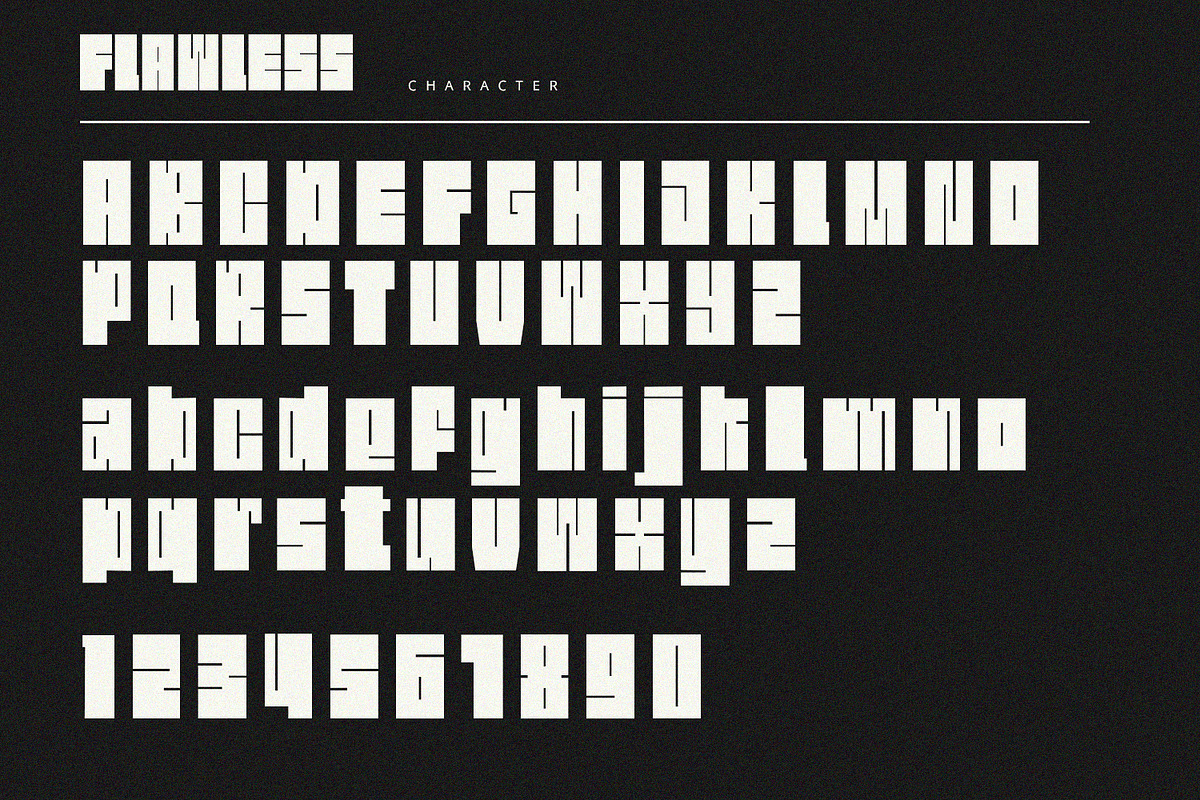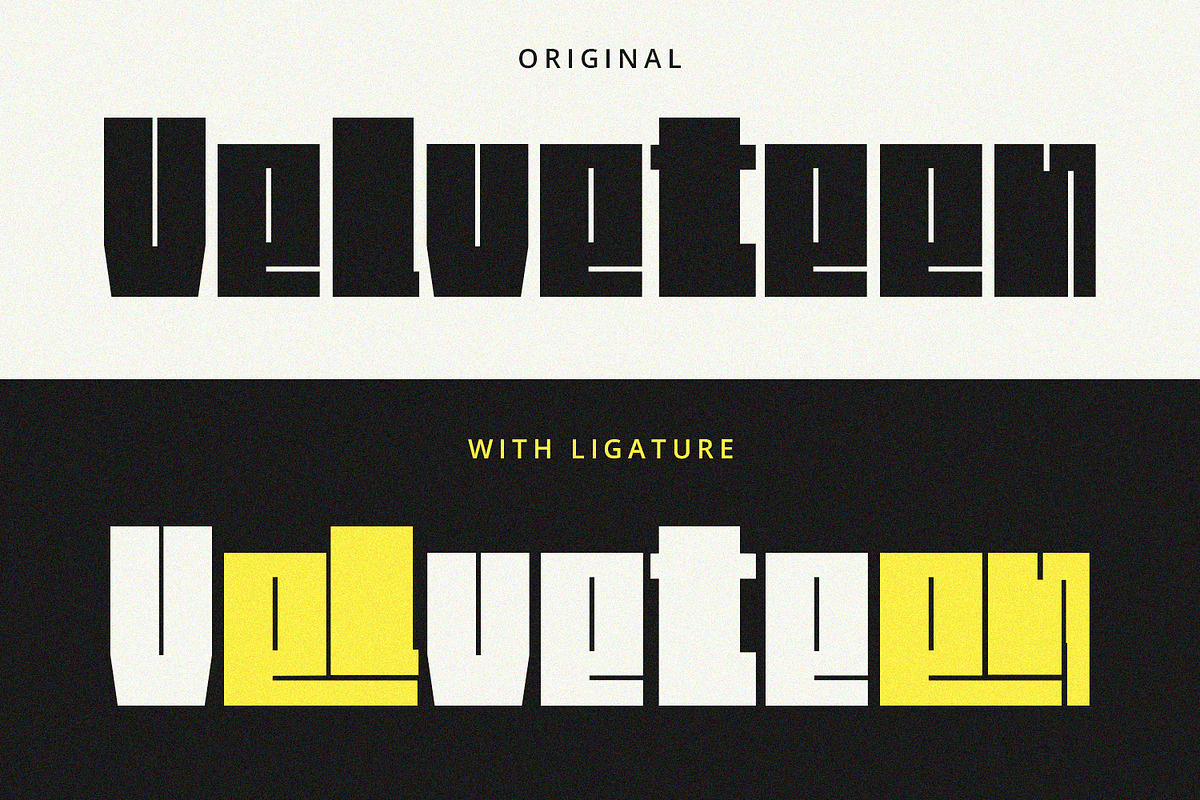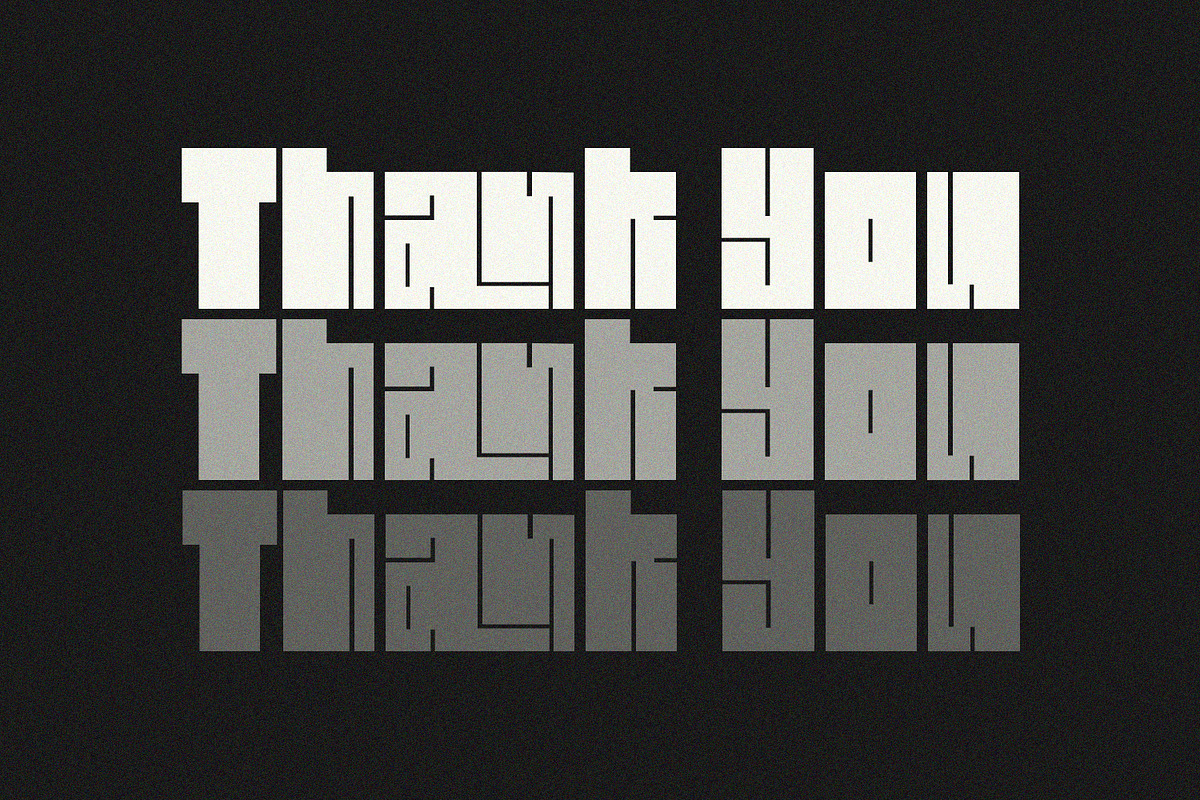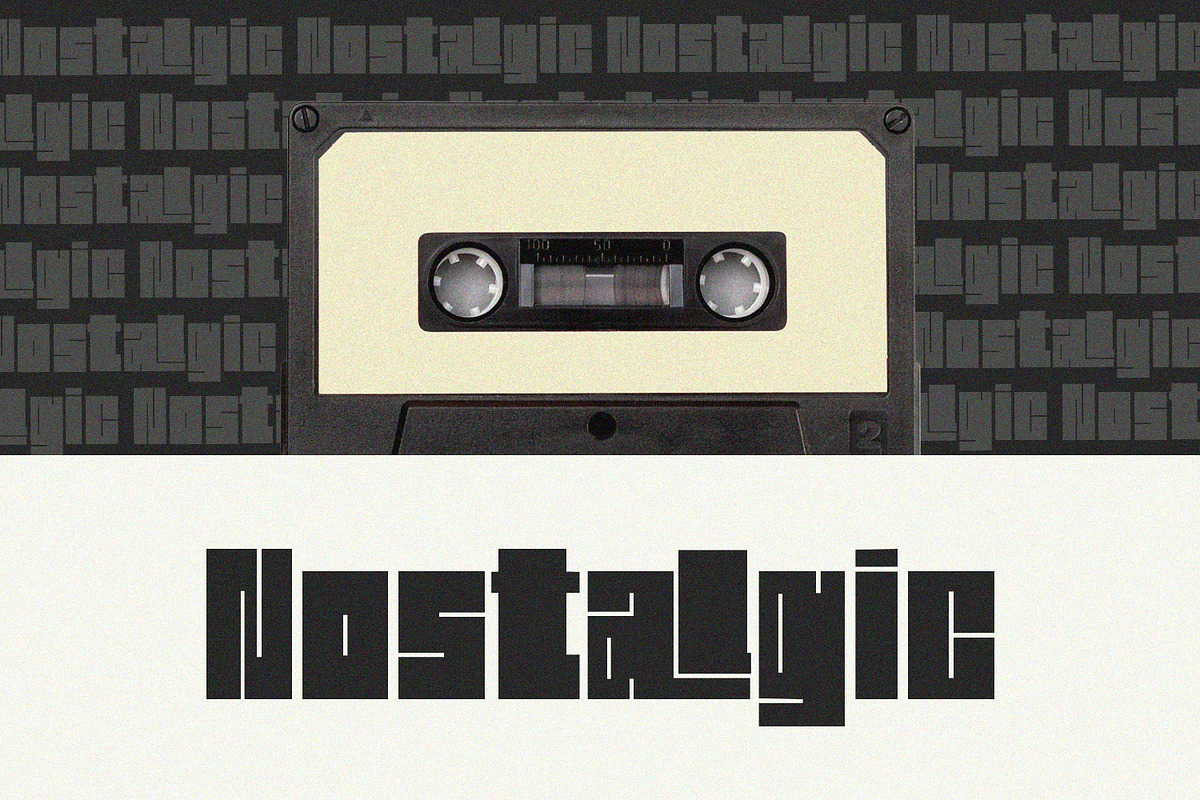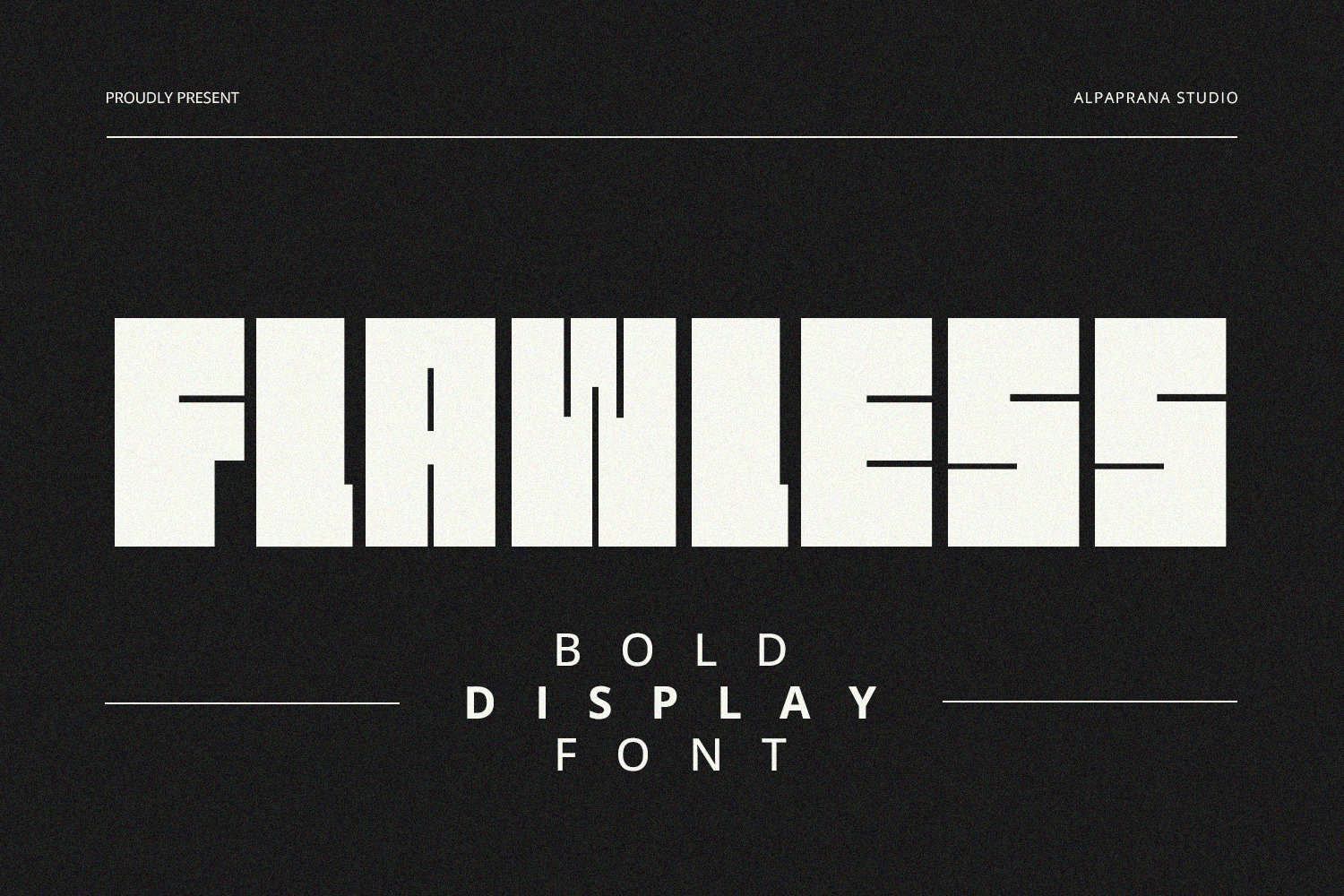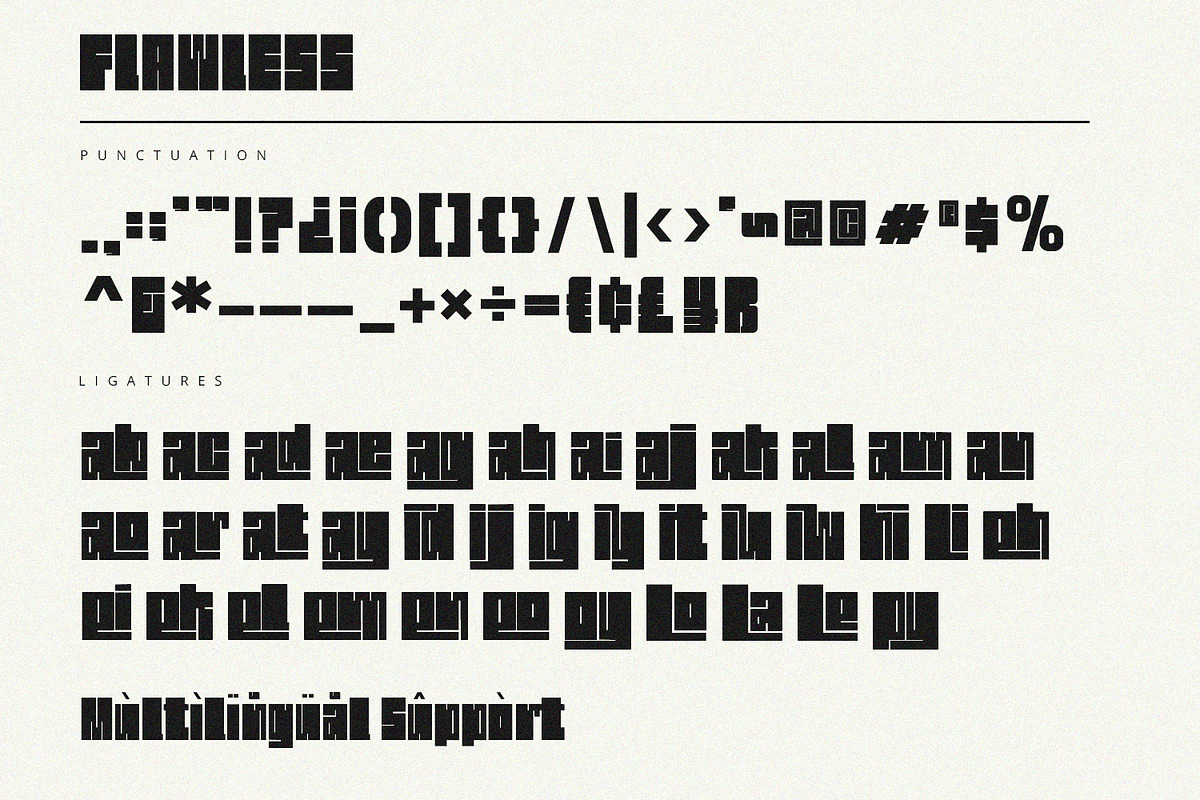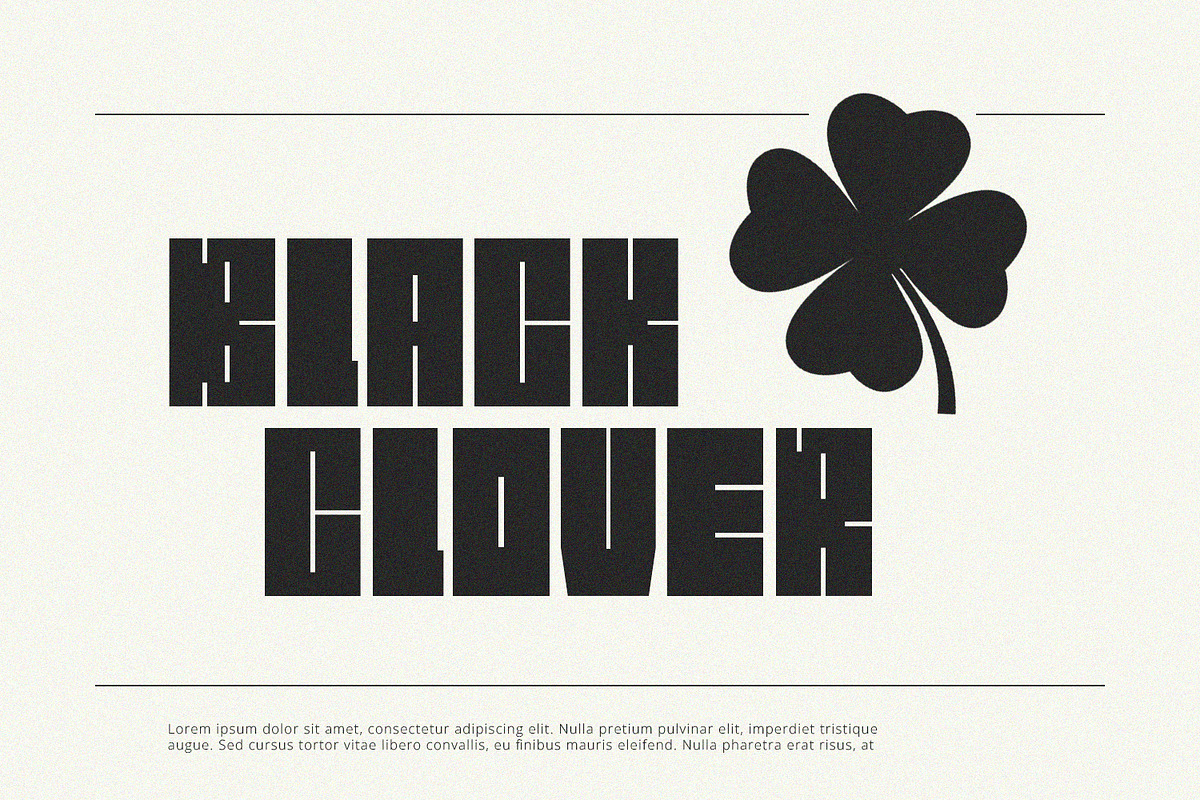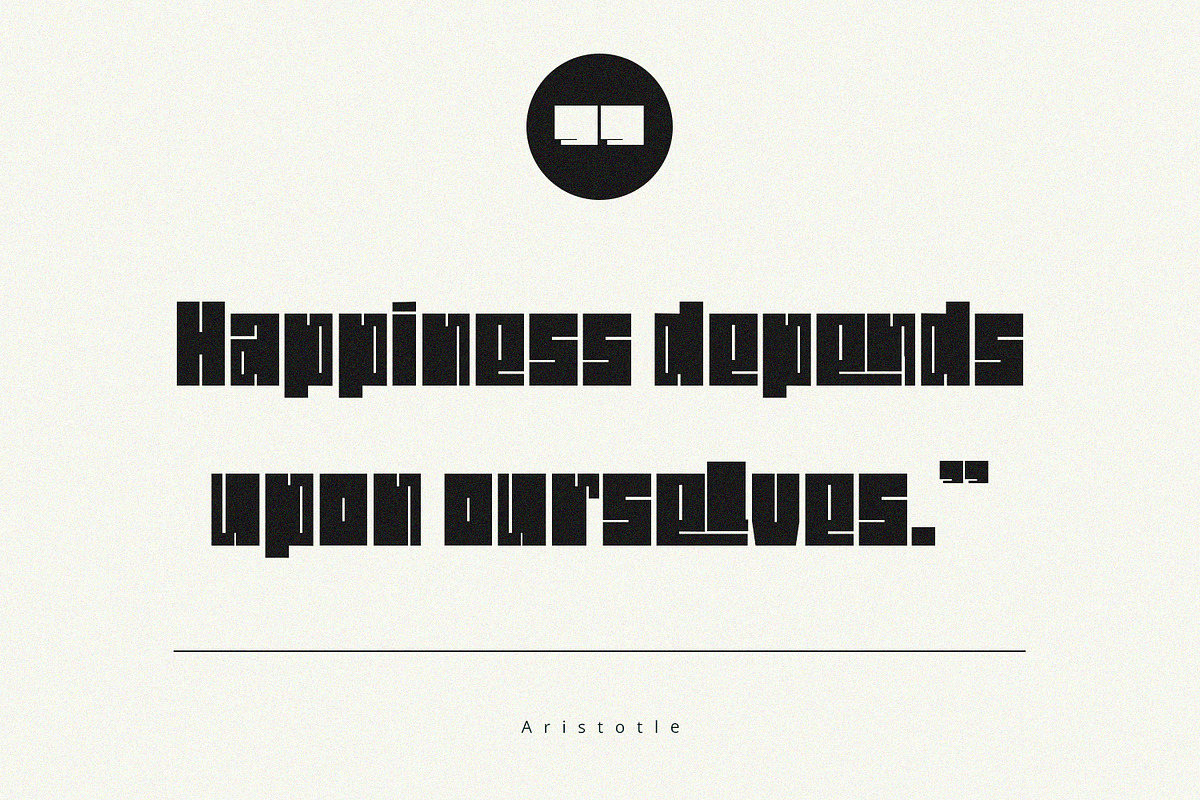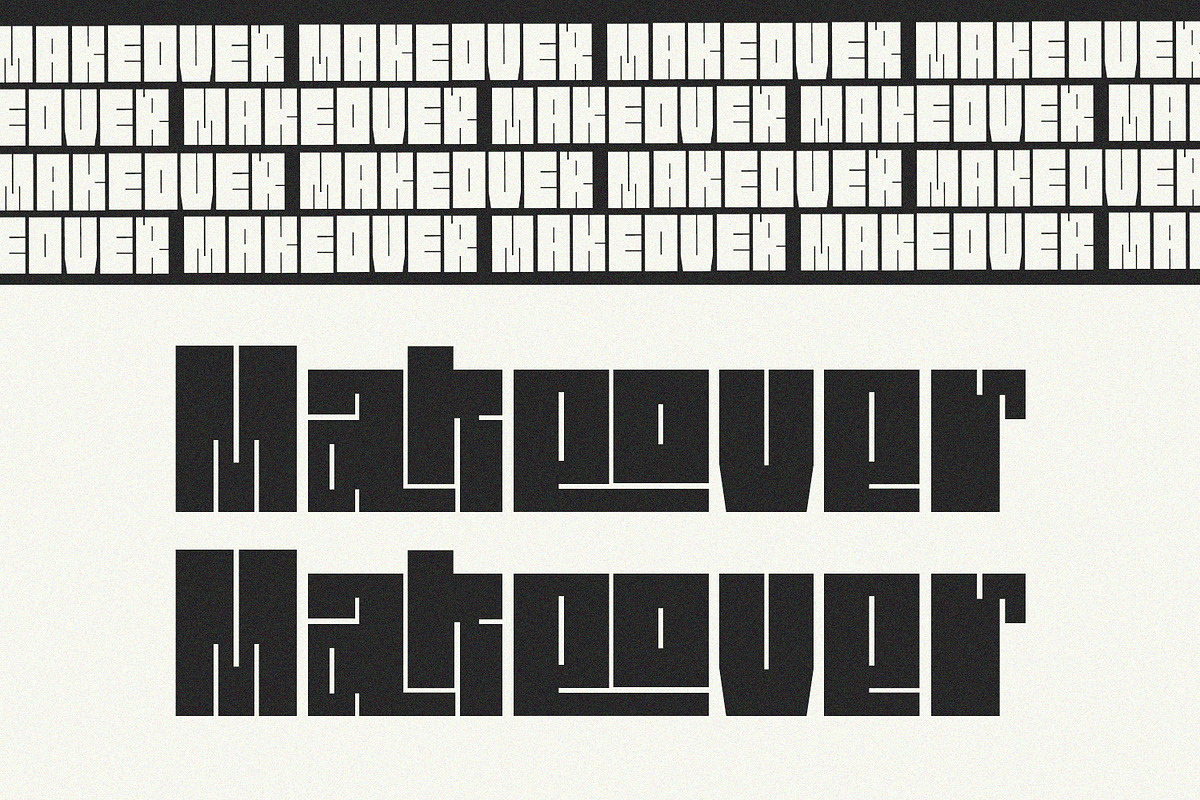
Flawless - Display Font
Flawless is bold display font with modern and futuristic feels. It will be perfectly used for Branding, Logo Design, Lettering, Logotype, Clothing, Poster, magazine, packaging, posters, shopping bags, t-shirts, book covers, photography, special events and other design project.